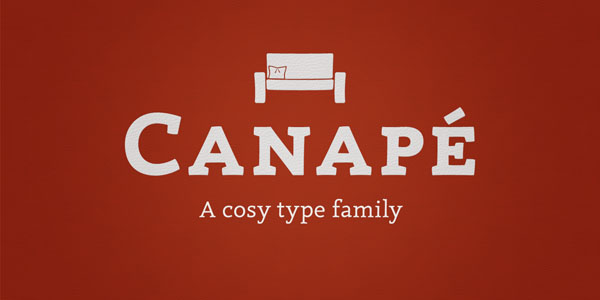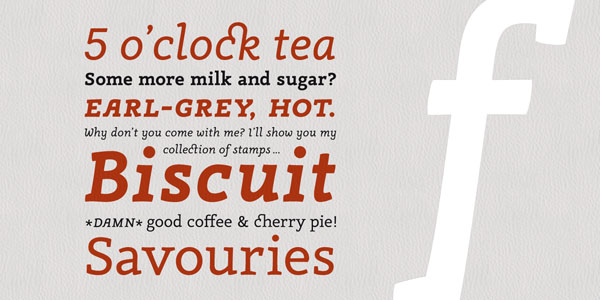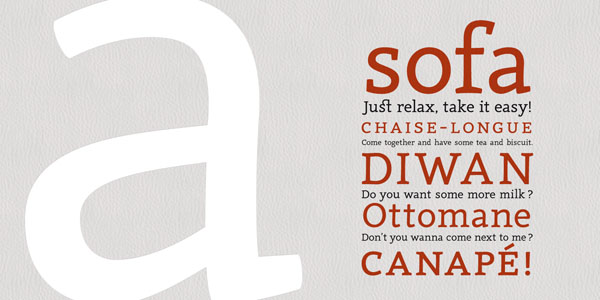
Canapé – A Cosy Serif Type Family.
The Canapé font family by Sebastian Nagel (Font Publisher: FDI) has a subtly curved shape. Its typeface looks warm and friendly. The Canapé type family works great for both, as display font for headlines and as very readable text font. This nice serif family consists of 4 fonts with more than 4,200 characters and it includes numerous OpenType features such as standard and discretionary ligatures, small capitals, swashes, different figure sets, automated fractions, ordinals, and support for Central and Western European languages.